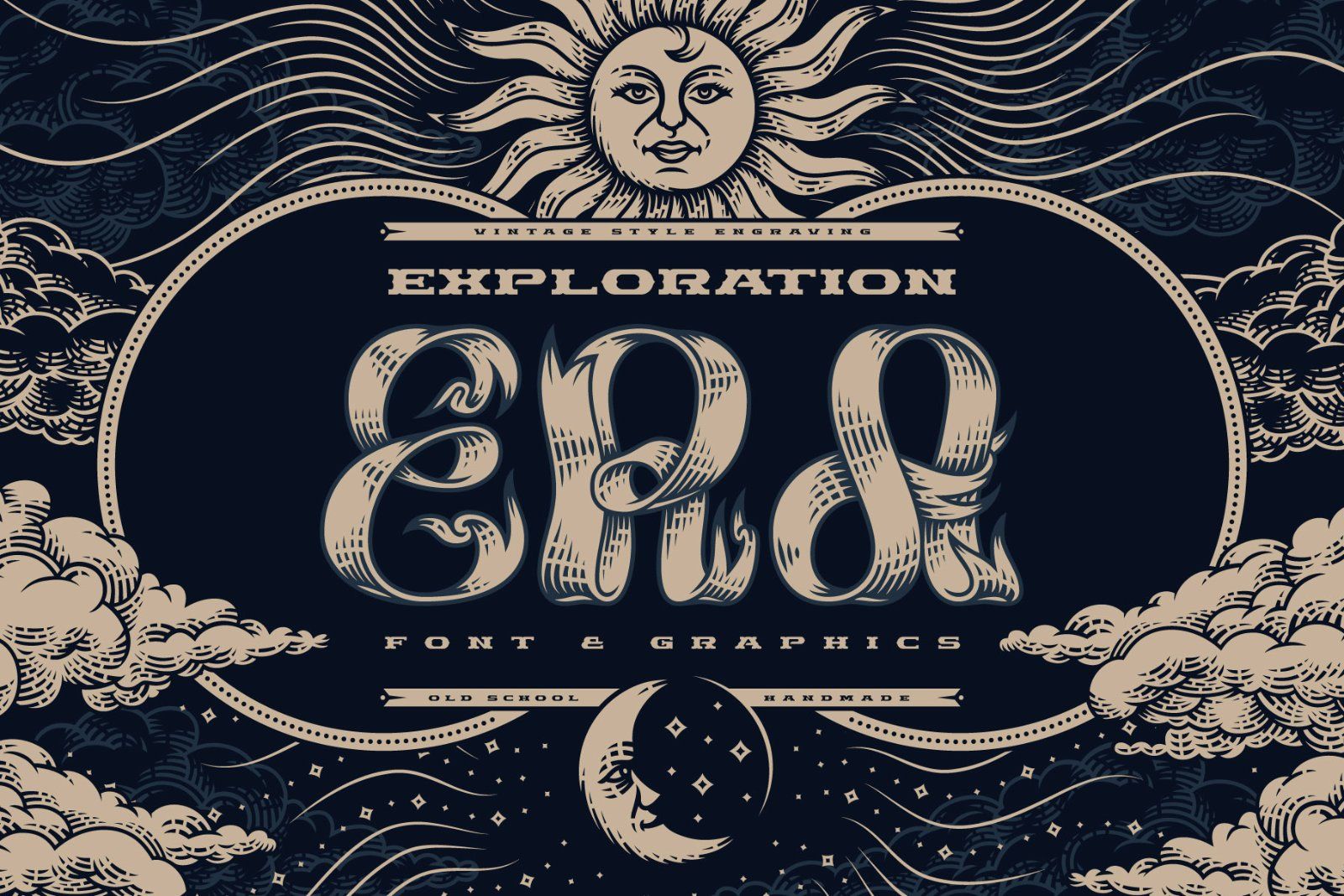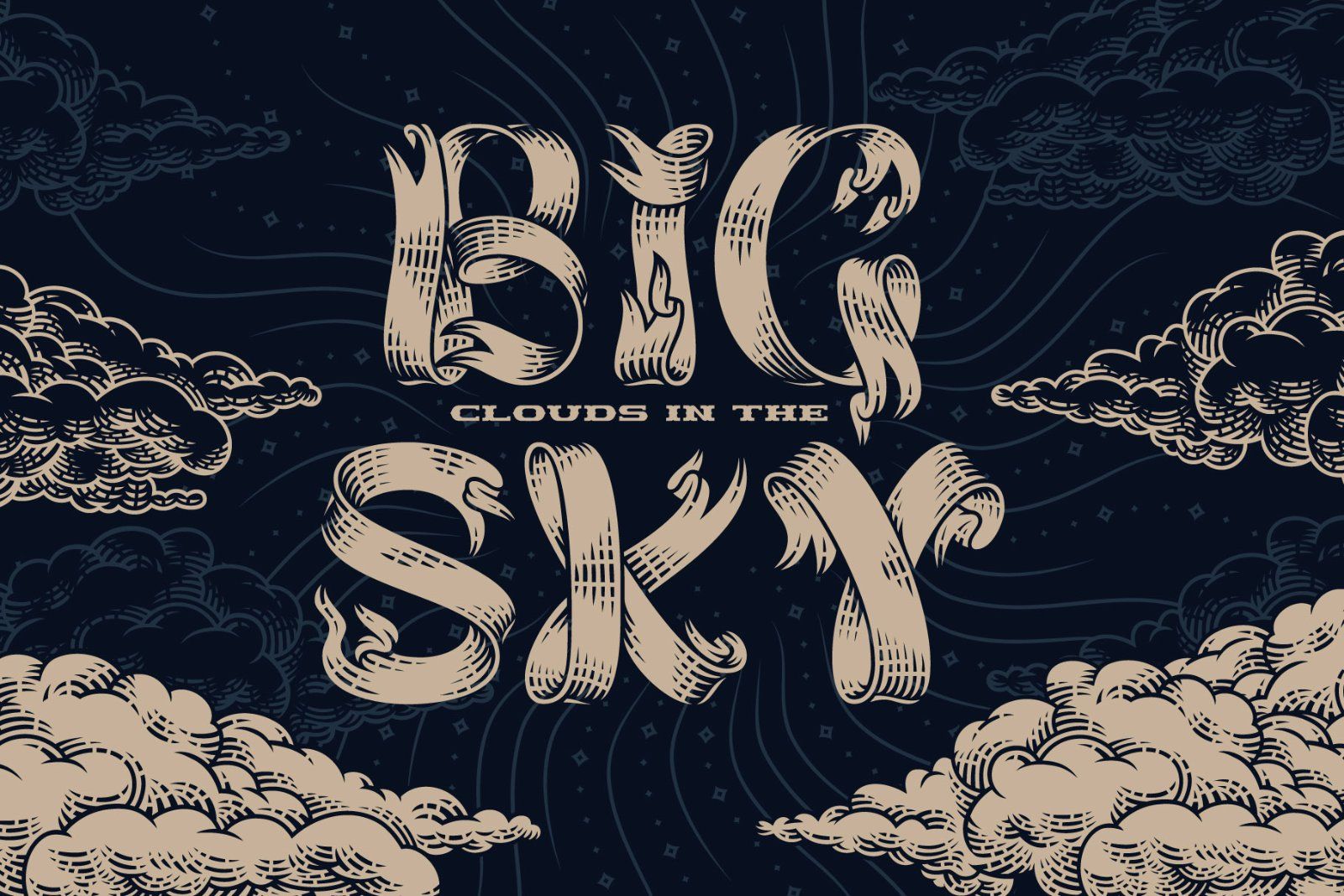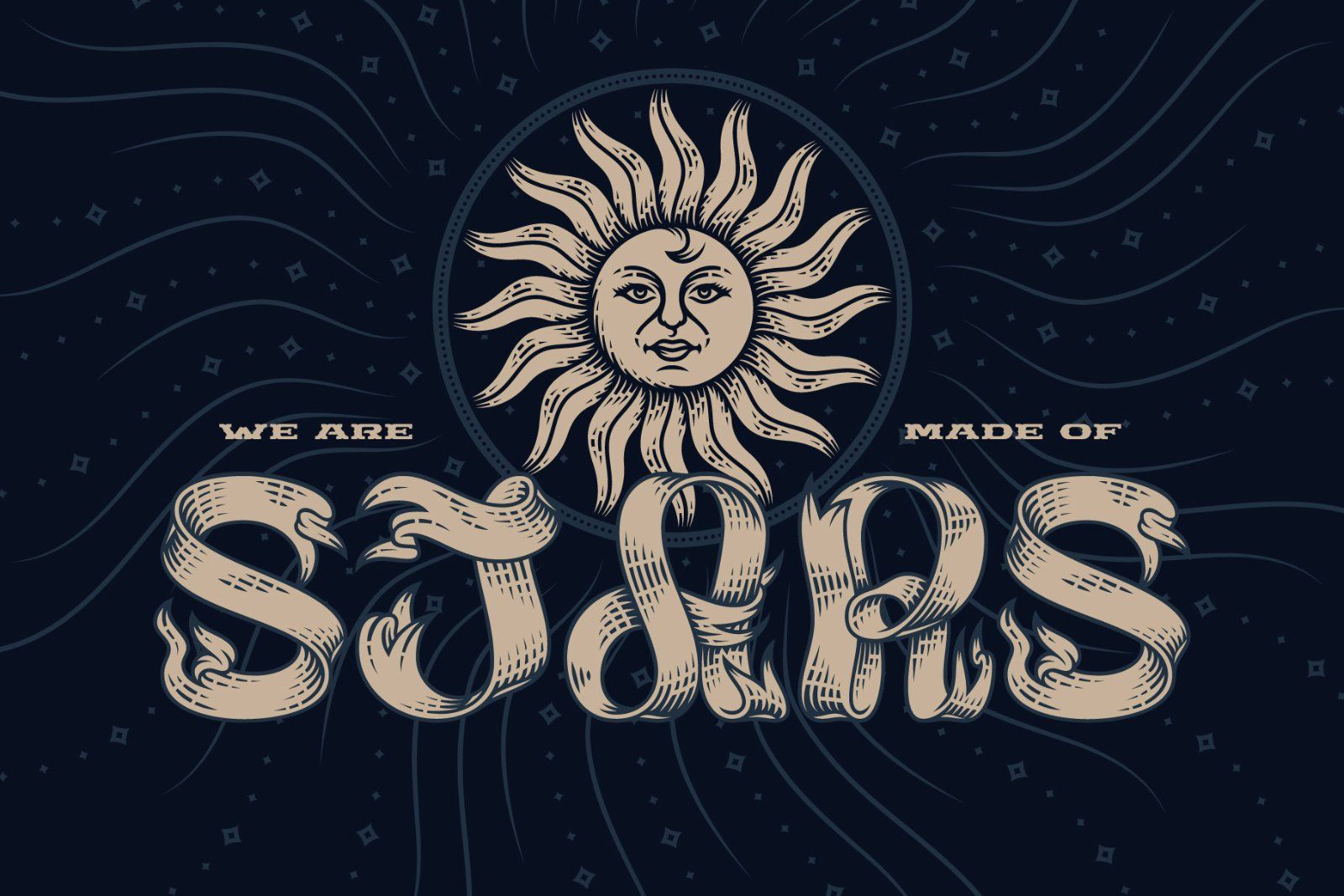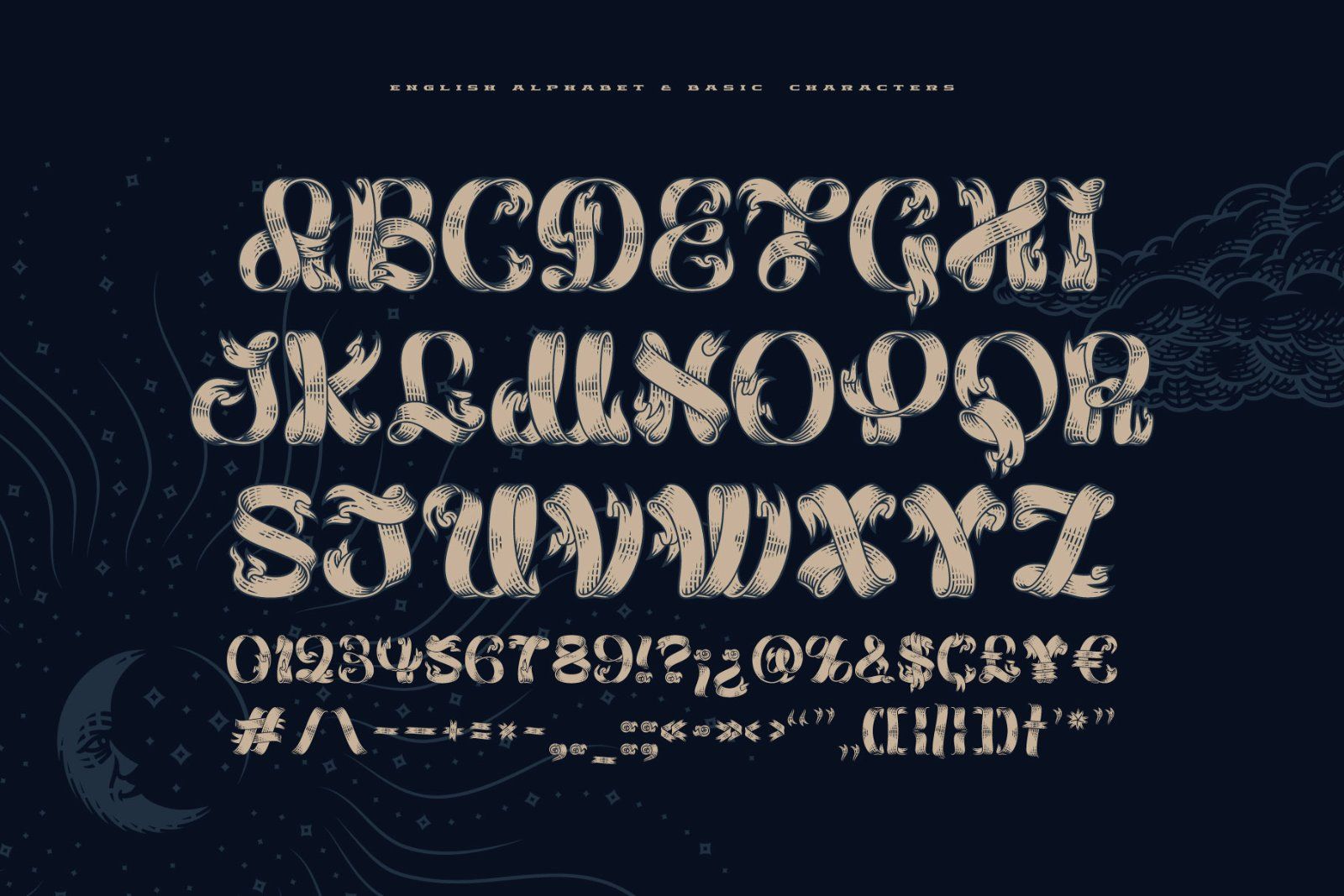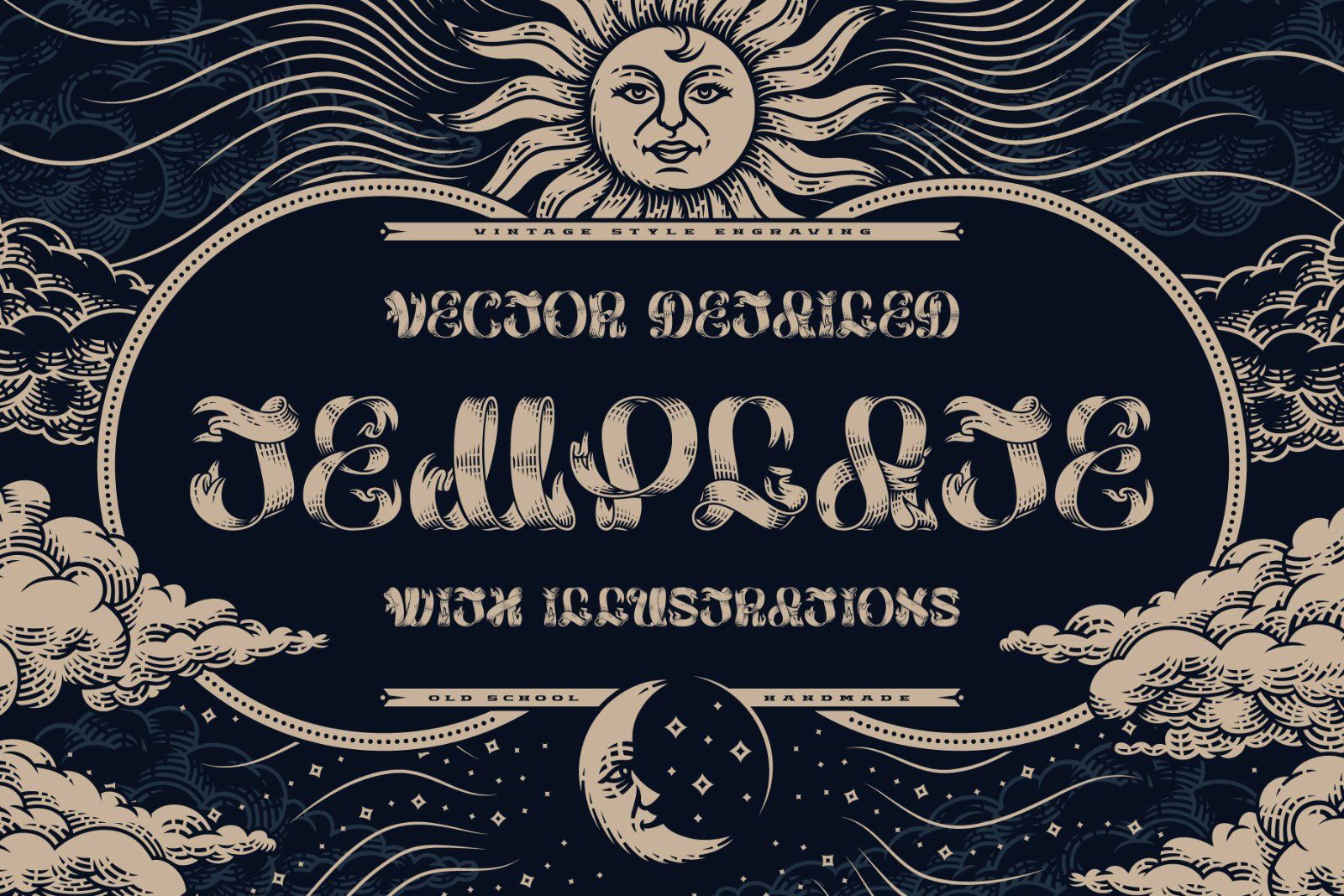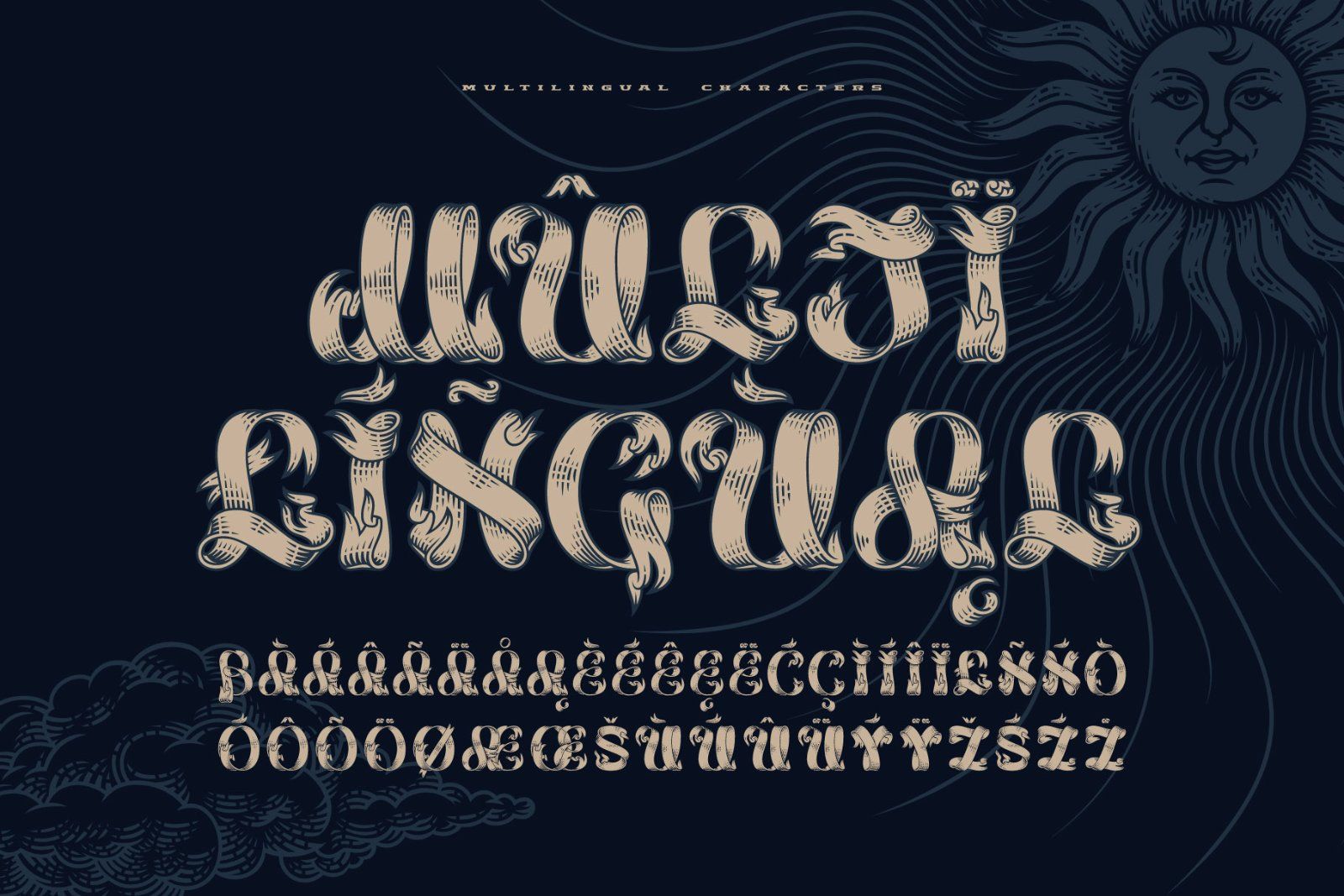
Hello! Presenting a vintage style font — Exploration Era. It's a handmade typeface with characters made of tangled ribbons with engraving style shading. Exploration Era has three fonts (Regular, Outside & Inside) for more convenient recoloring. Also this font has multilingual support (check out a screenshot with available letters and signs).